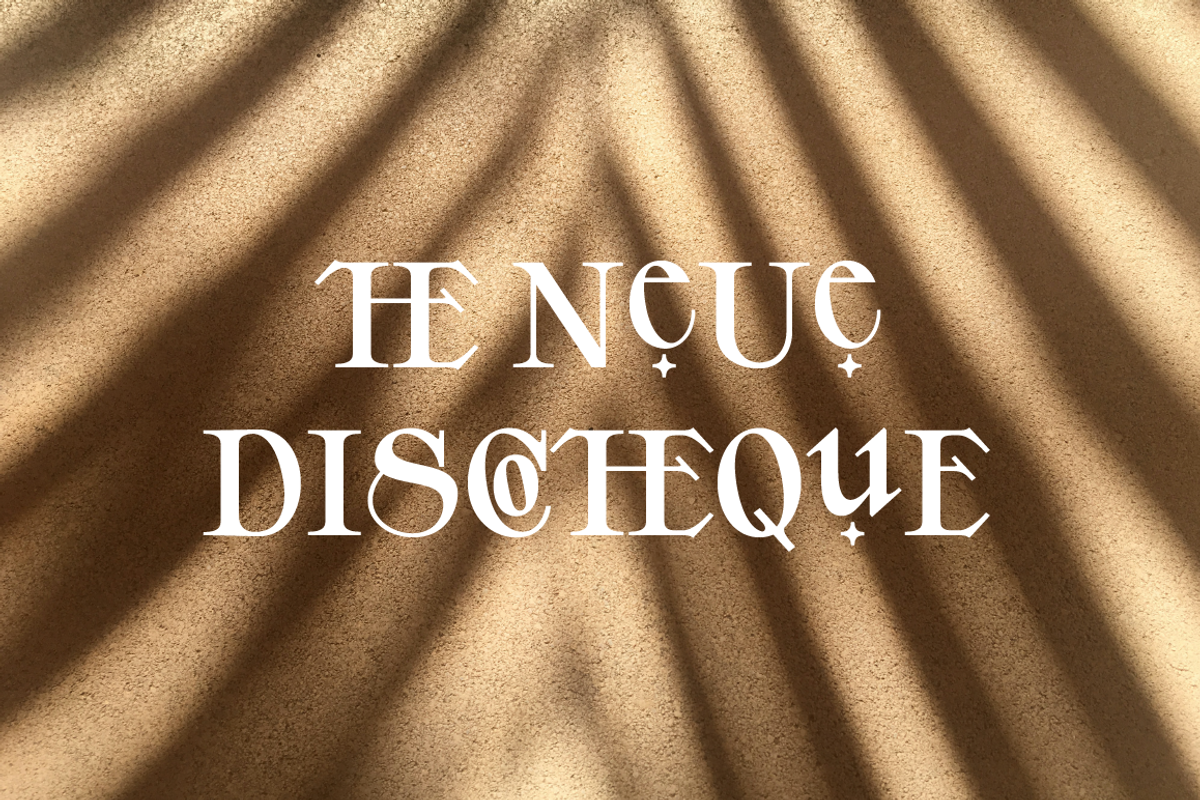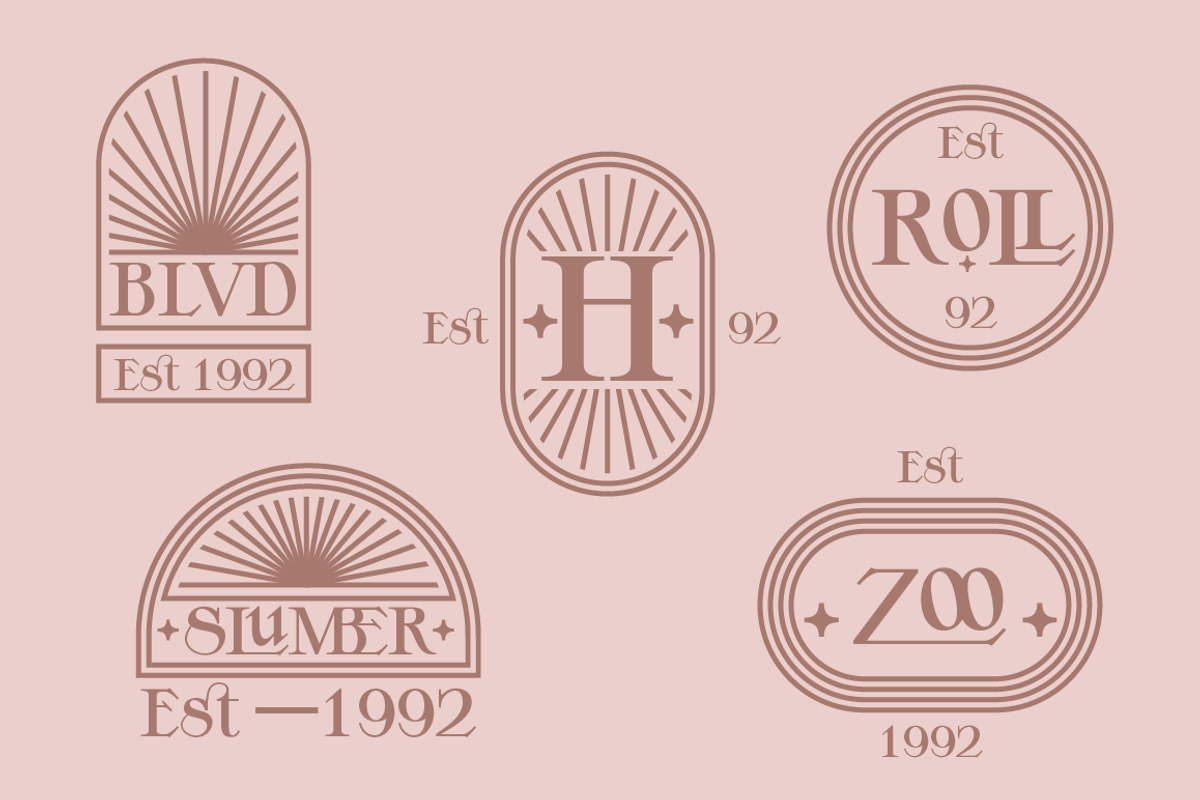
YE is a bold contemporary serif display typeface that stands out. With a semi-condensed style, a high visual center, and sharp-angled serifs. Includes over 50 Ligatures and alternatives Ye is elegant and strong. It dances between playful and proud. It is perfect for fashion, contemporary, web, and logo design.